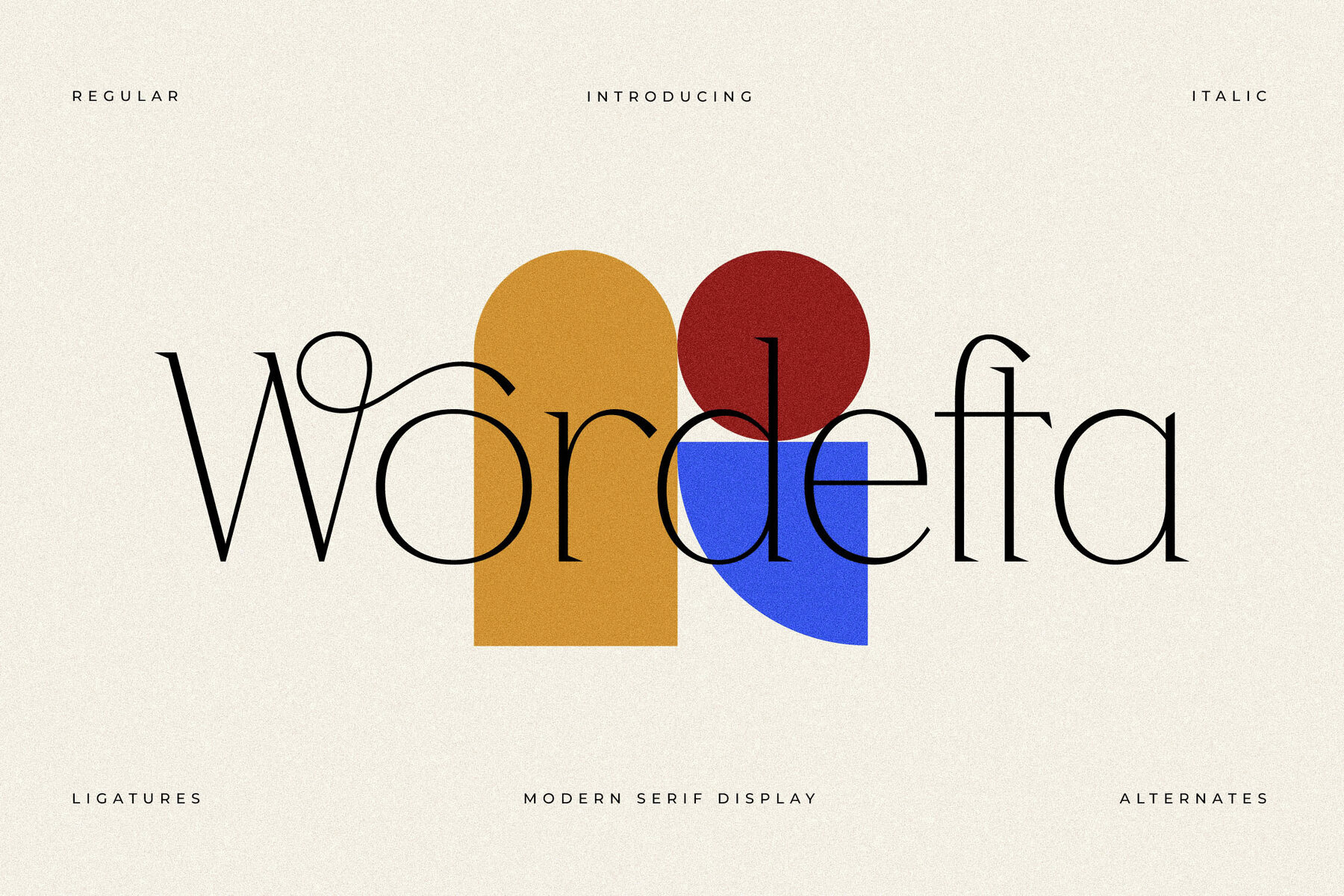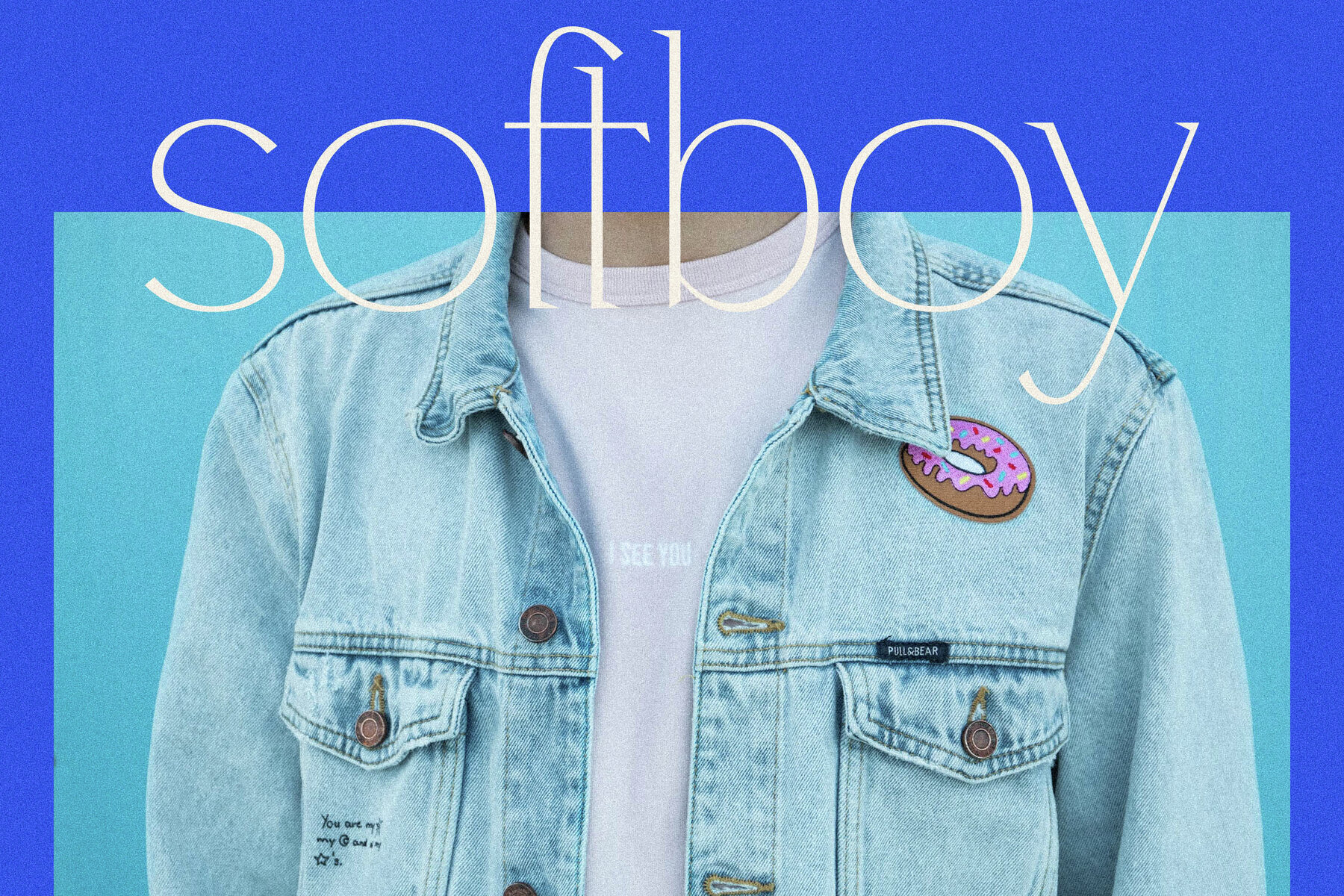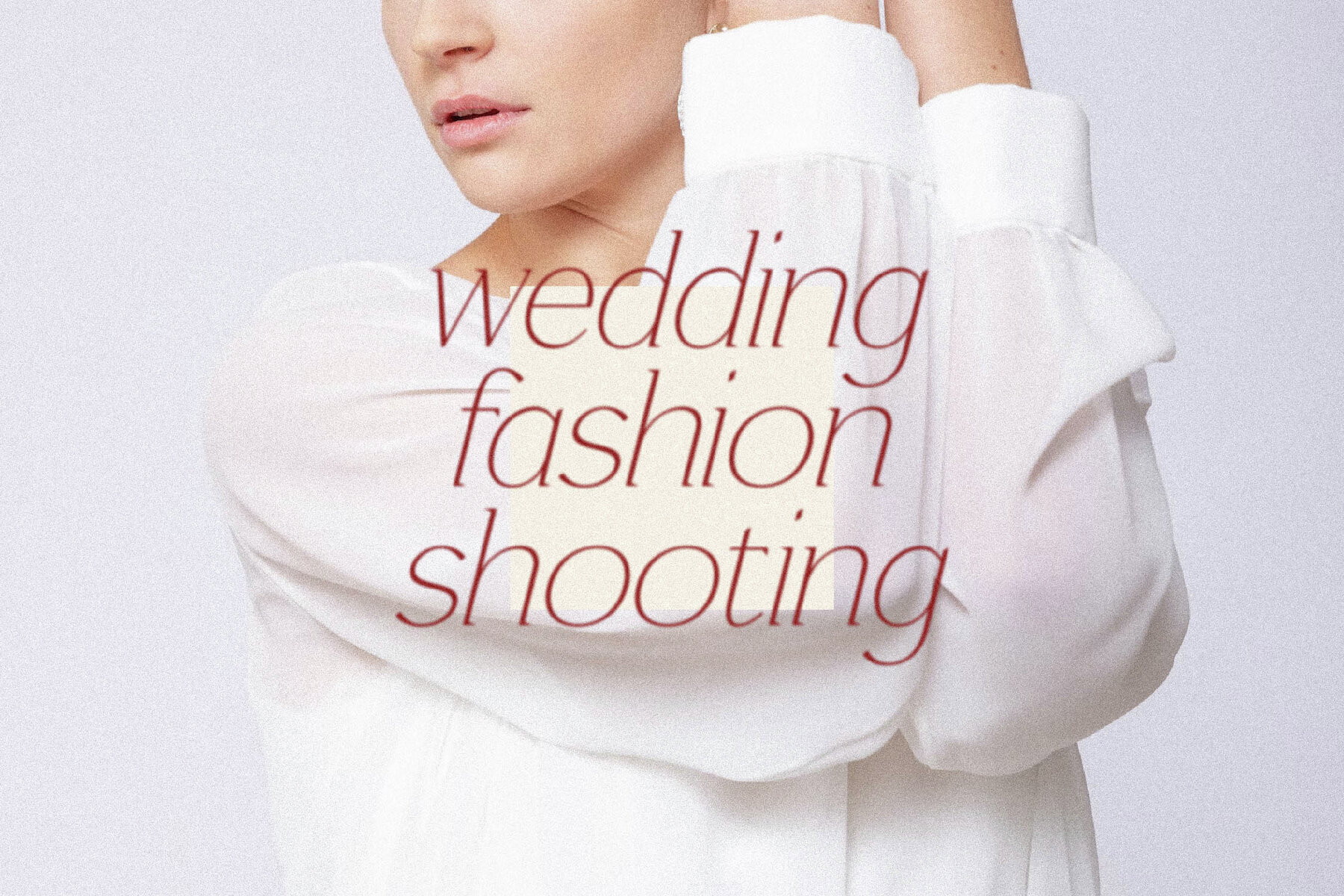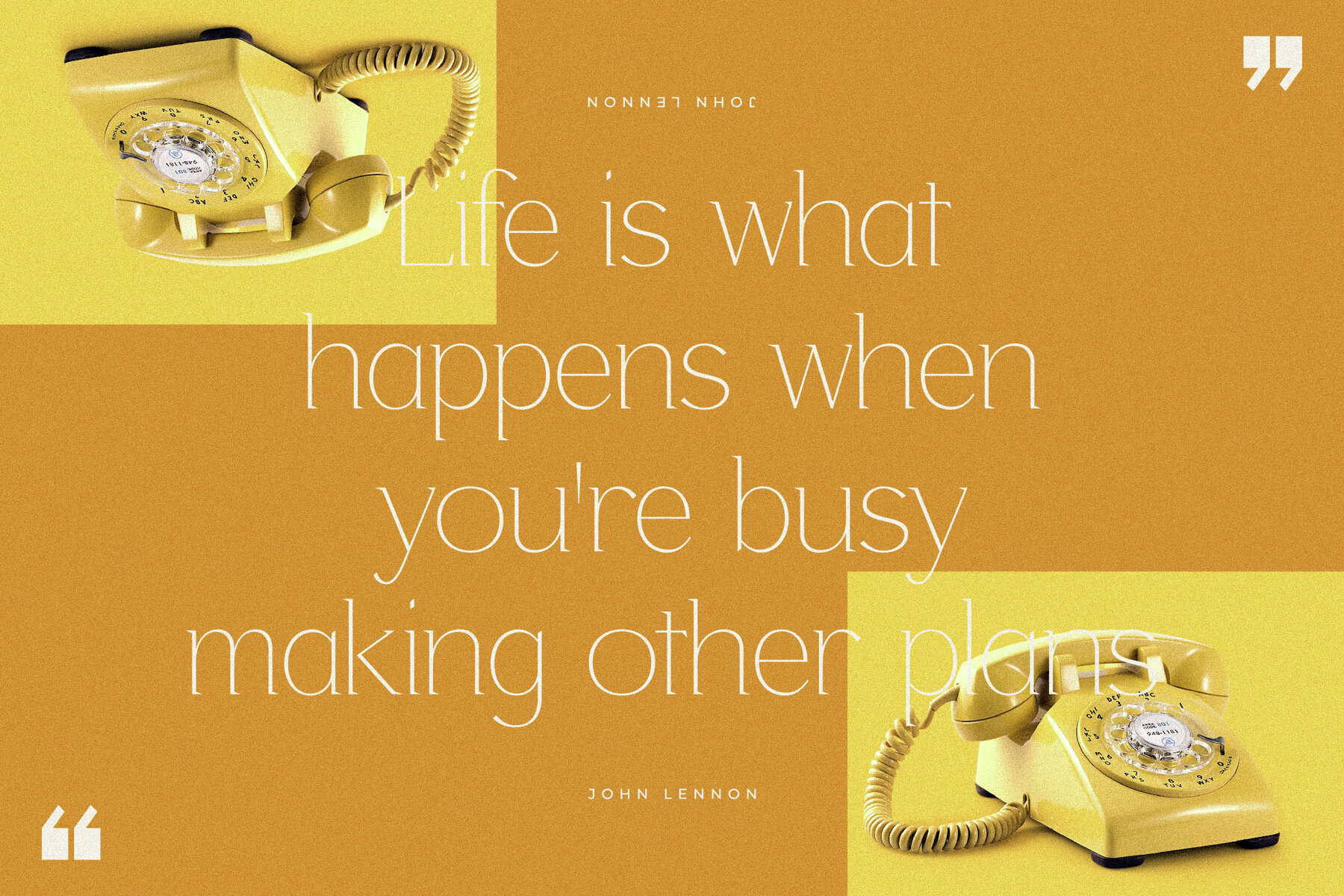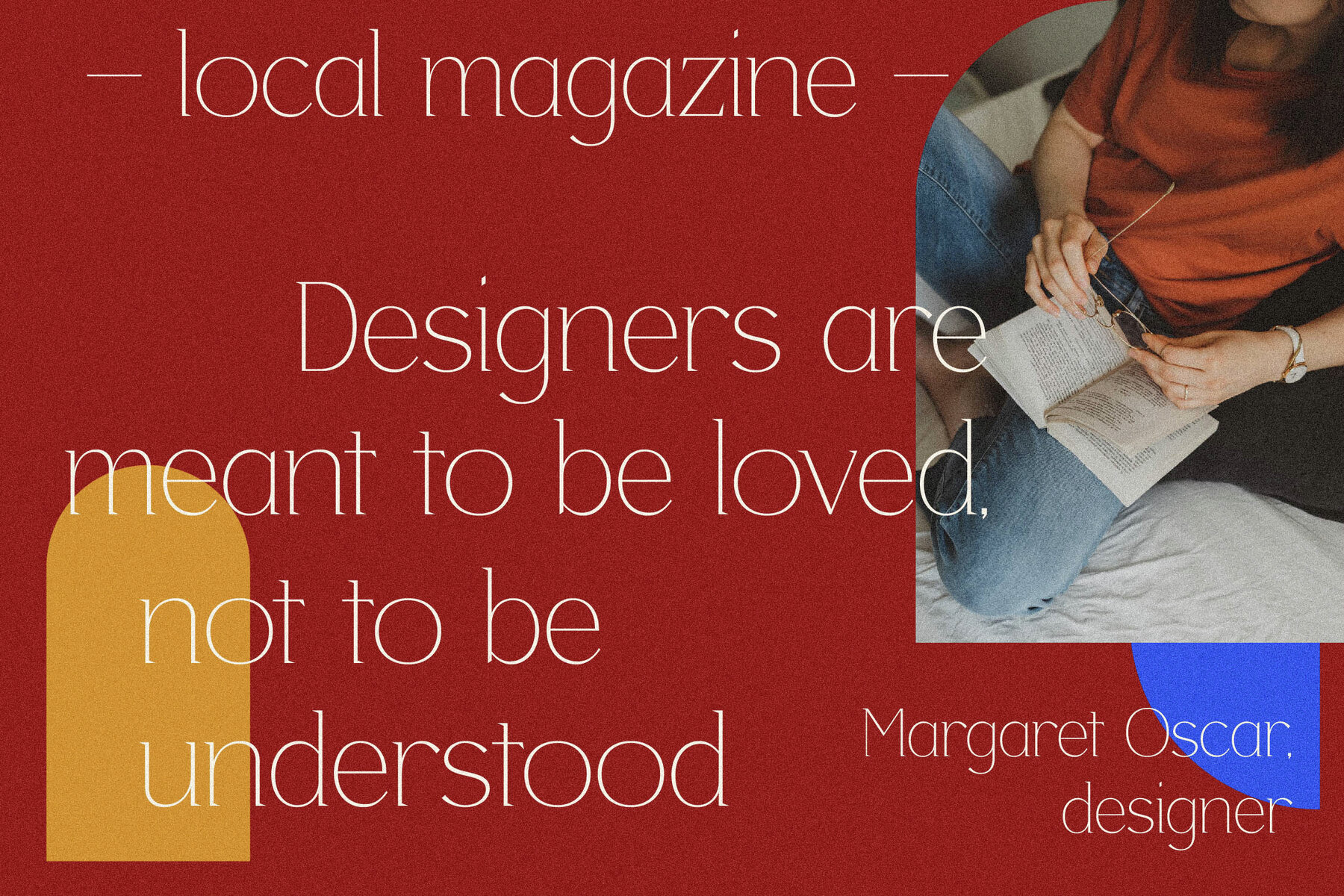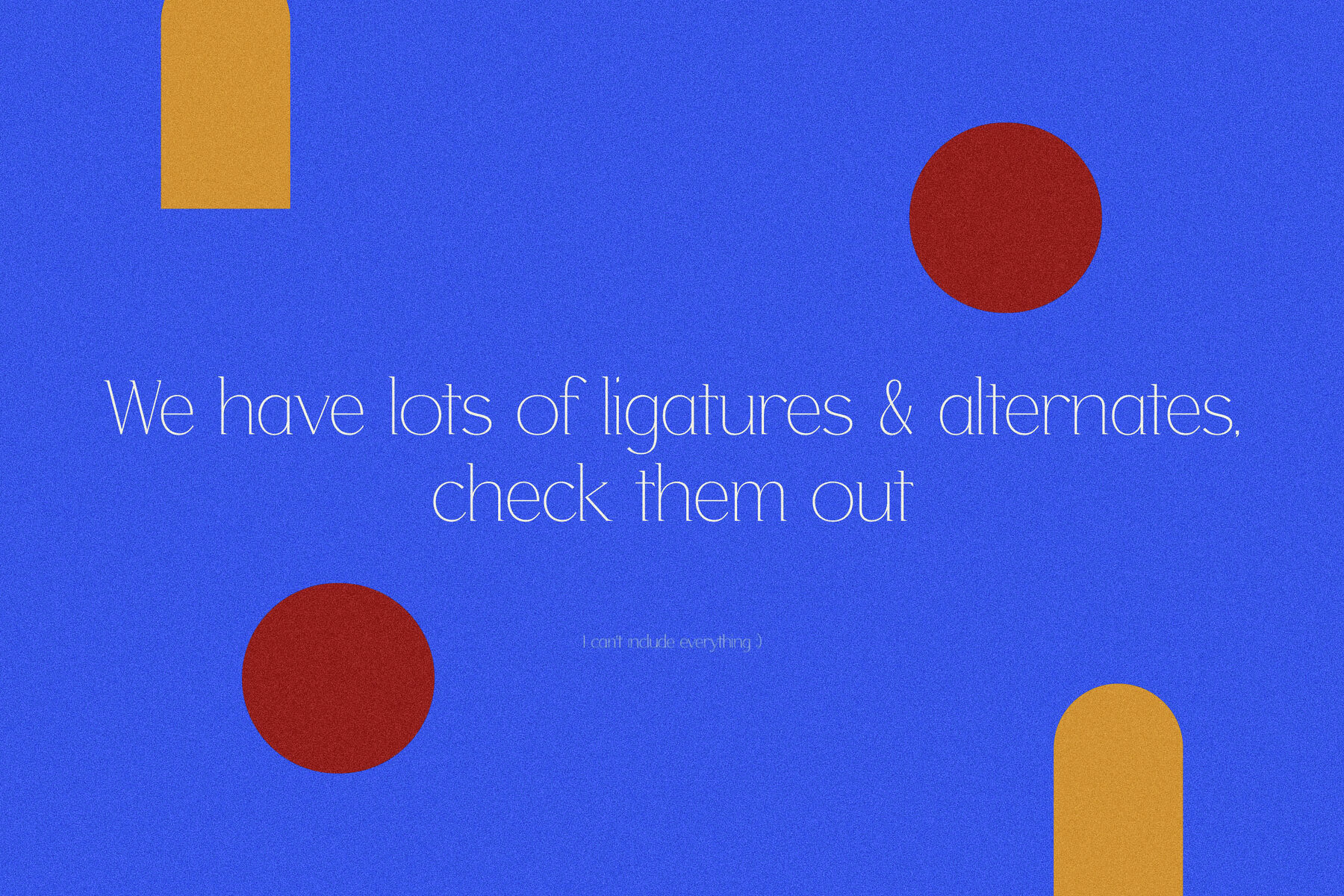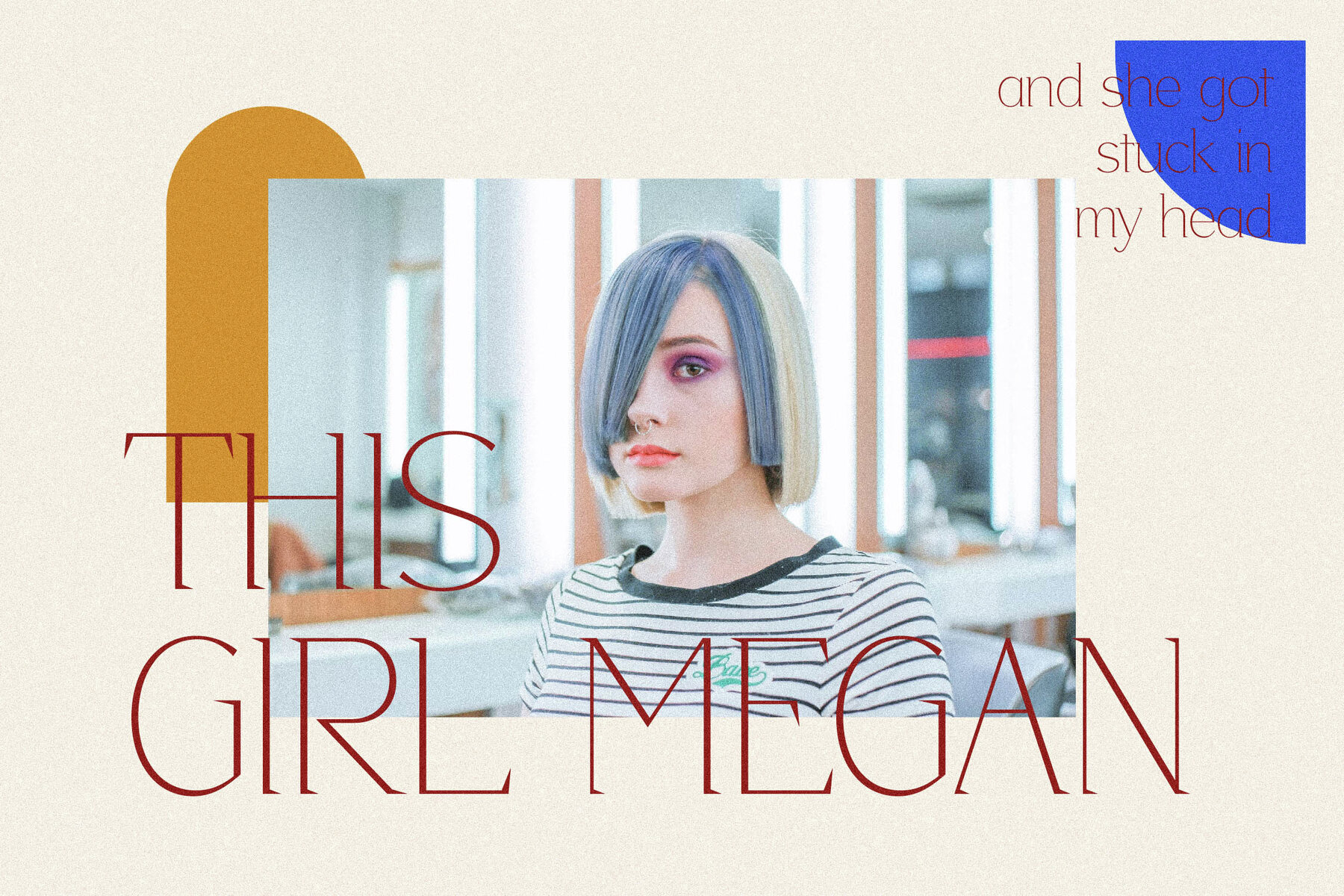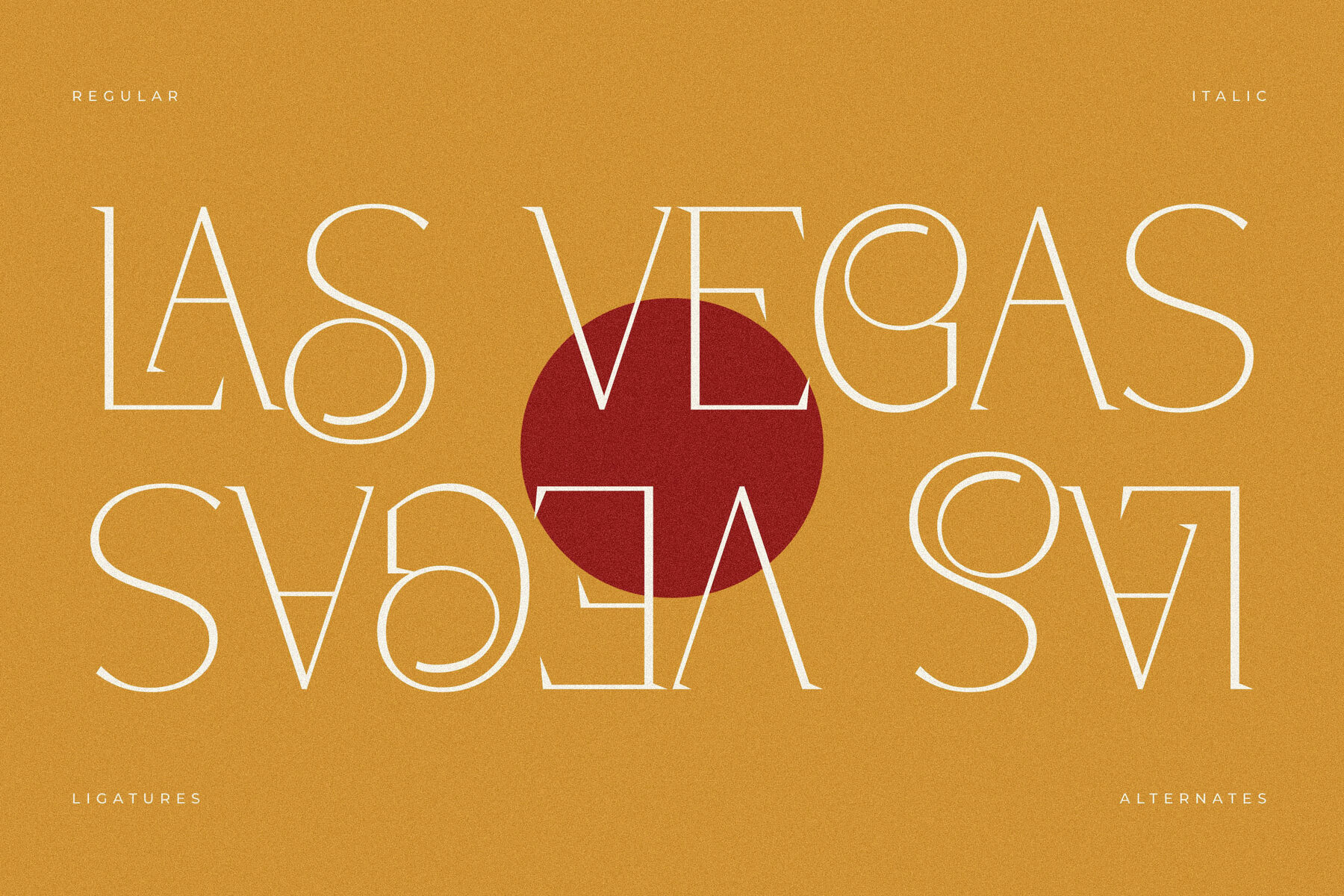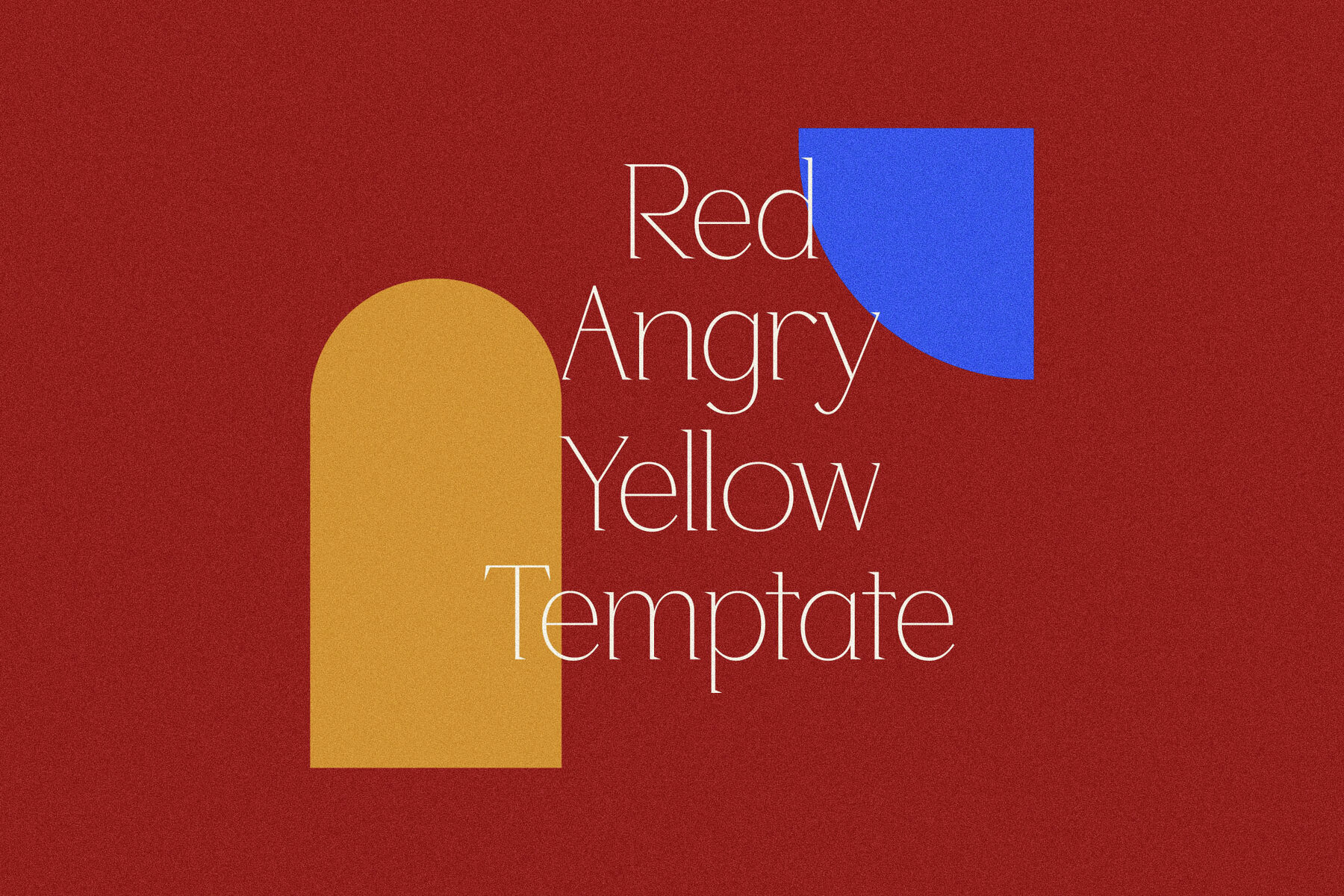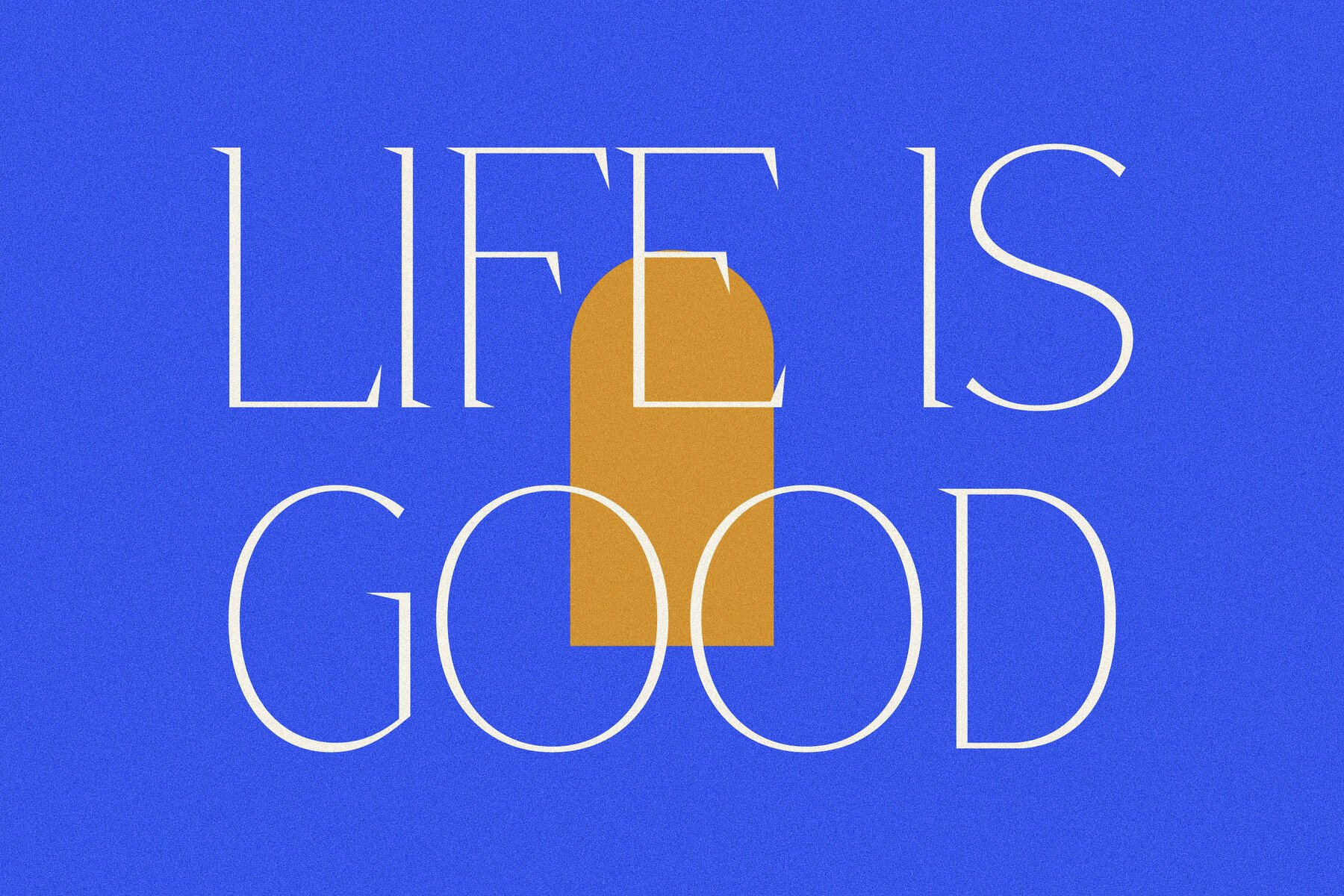
Wordefta Font
Meet Wordefta Typeface, where modern aesthetics intersect with classic serif charm, crafted by the talented designers at Storytype. Its distinct style and contemporary feel make it an impeccable choice for those seeking to infuse elegance and luxury into their designs. This typeface is ideal for creating sophisticated logos, book or movie titles, fashion brands, magazine layouts, and much more. Its versatility resonates across various mediums, ensuring that your creative expression is both refined and impactful.Wordefta: A Modern Classic Typeface